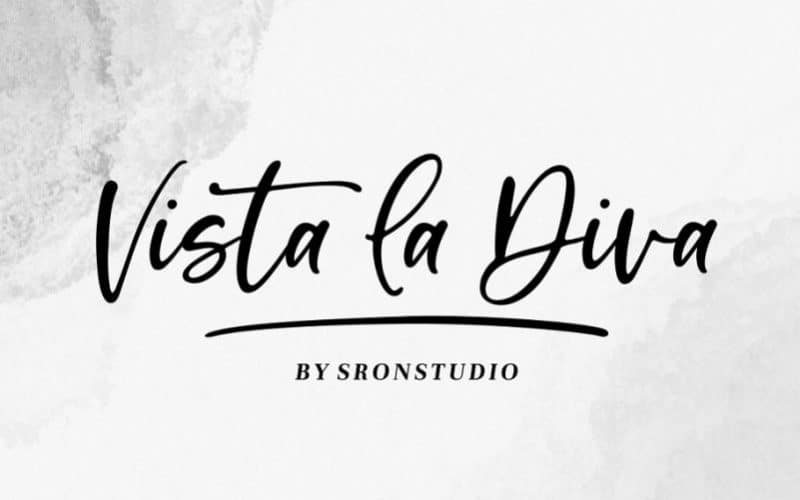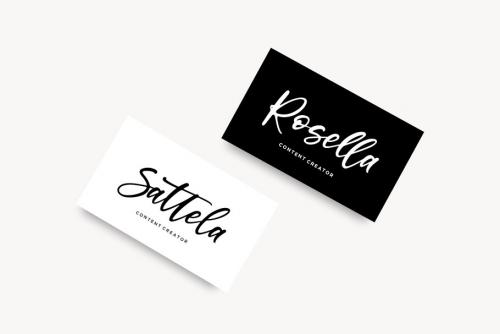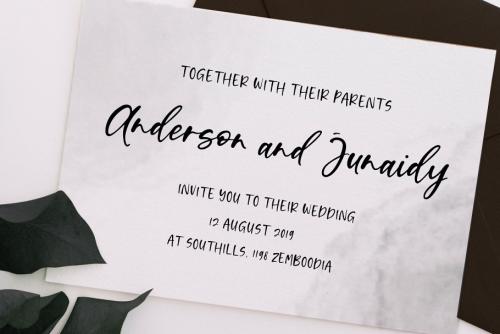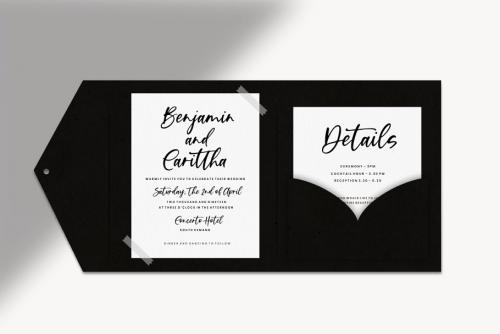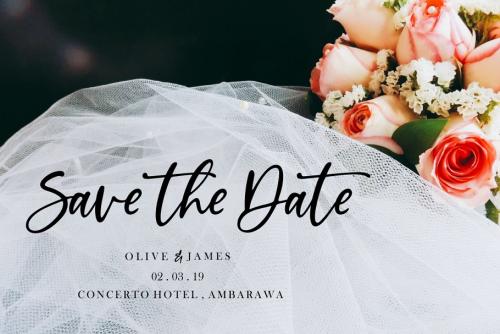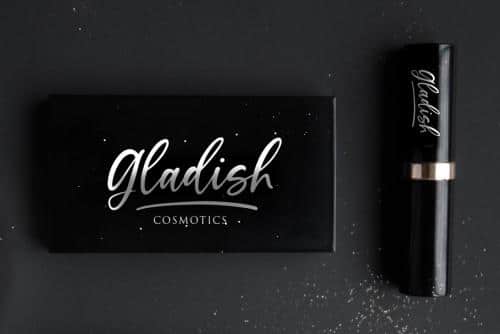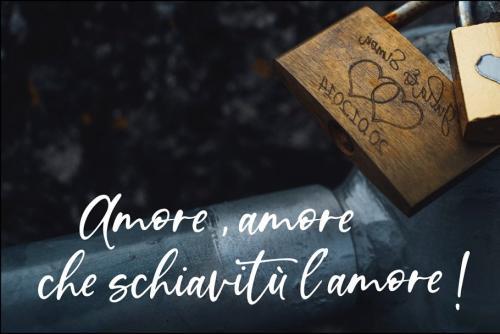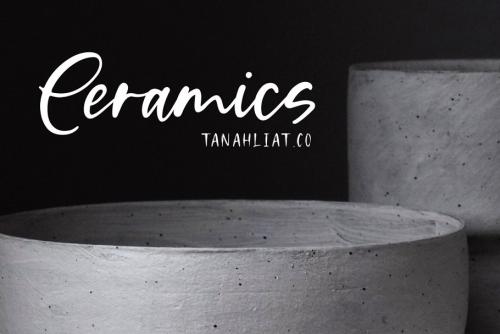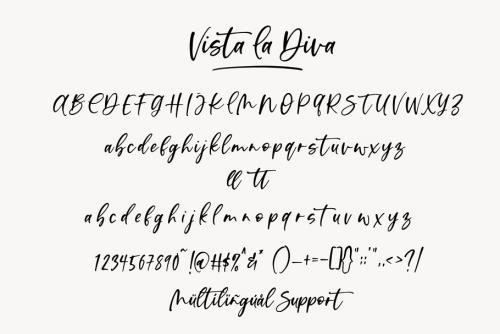
Vista is a beautiful script font, this font Is perfect for logo, invitation, stationery, wedding designs, social media posts, advertisements, product packaging, product designs, label, photography, watermark, special events or anything.
Vista comes with full set of uppercase and lowercase letters, Contextual alternates , multilingual symbols, numerals, punctuation.